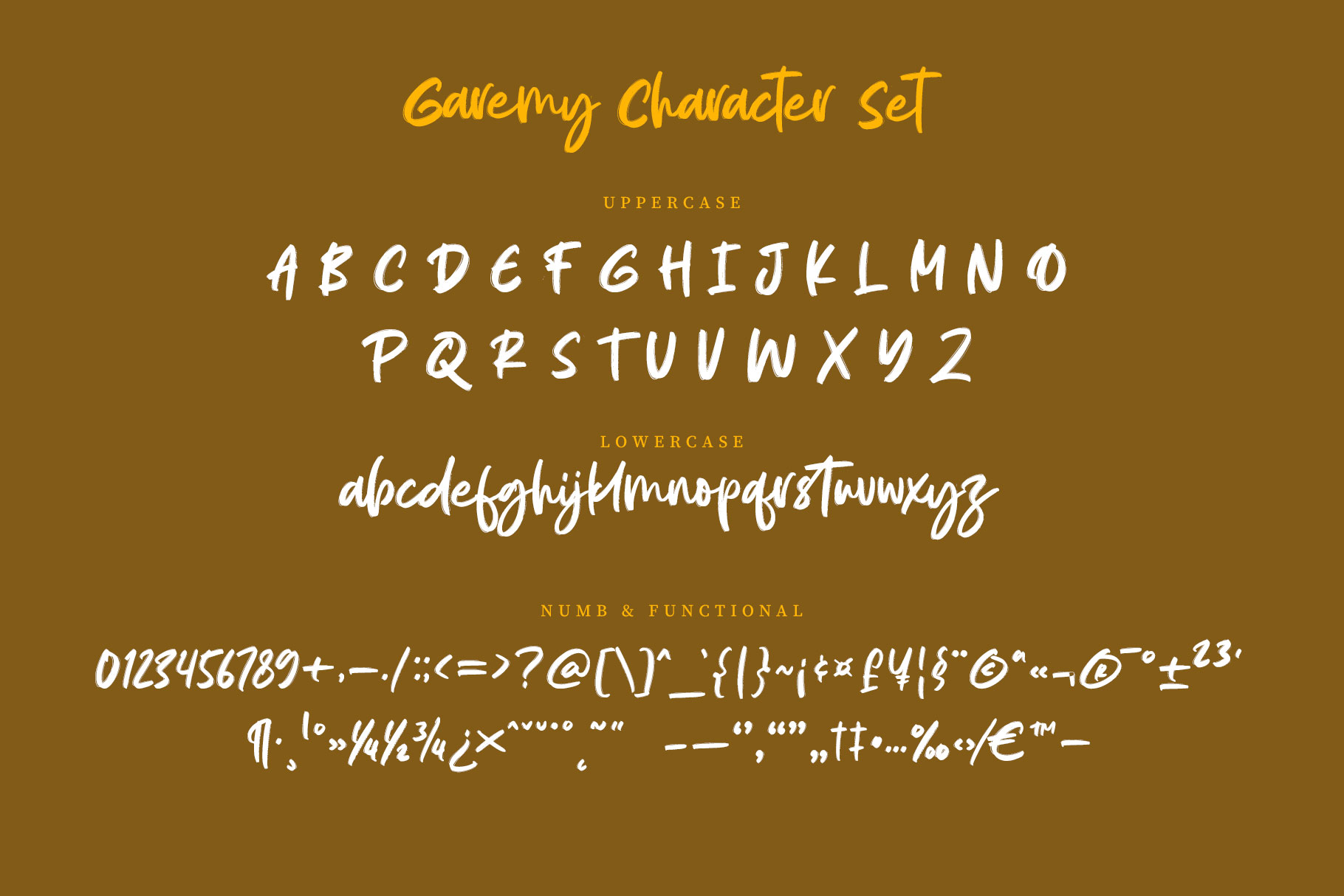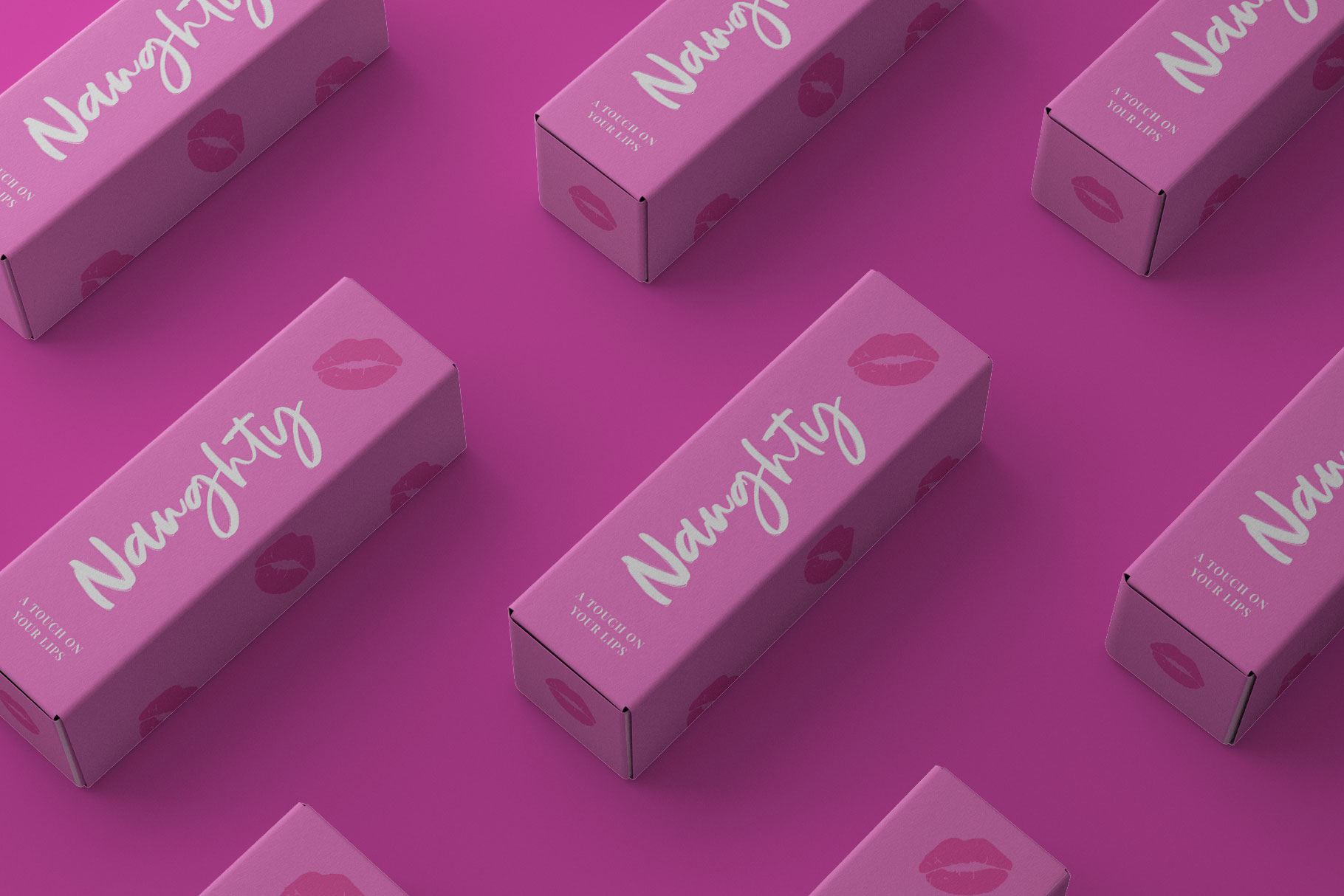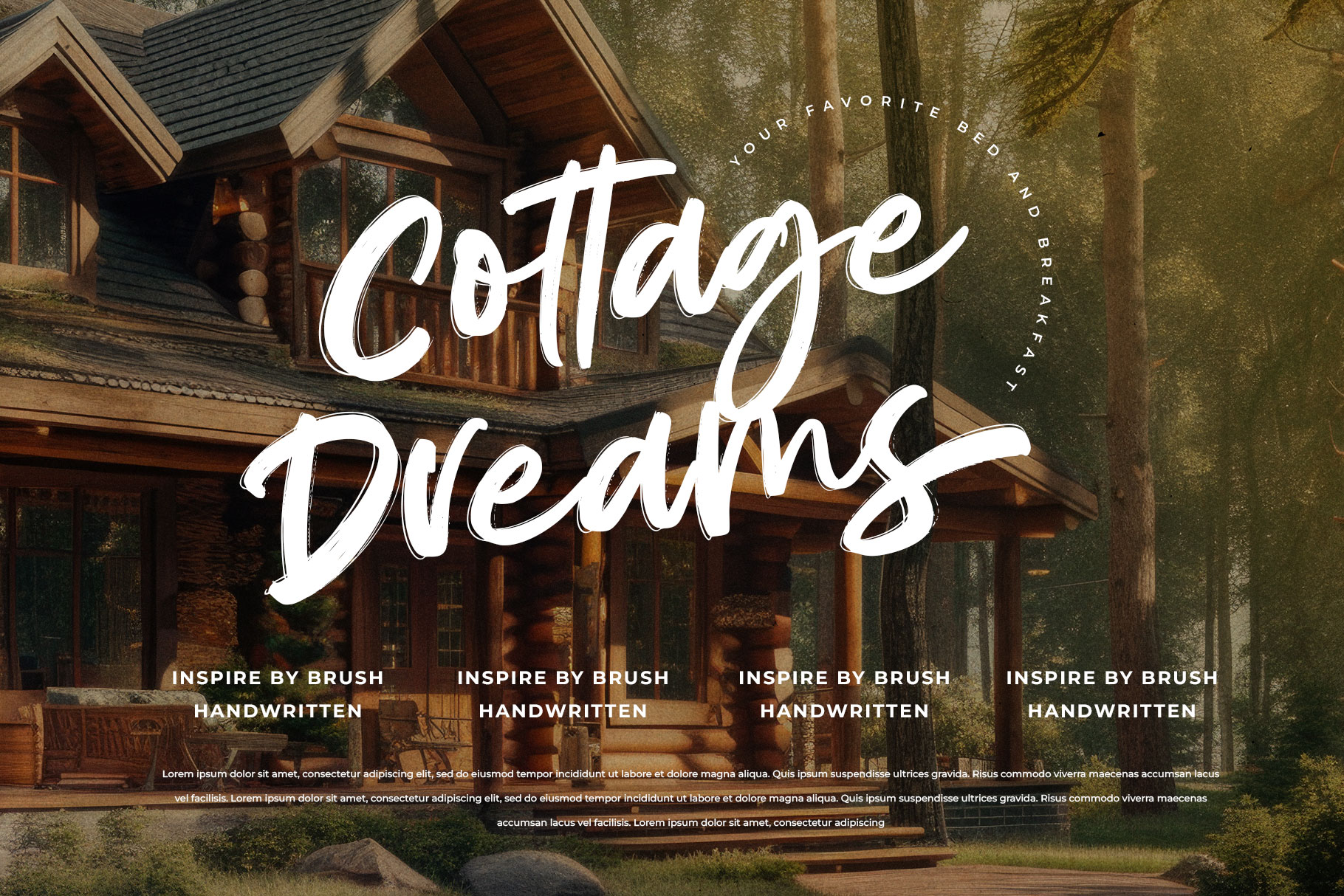
Garemy Handwritten Brush Font
Garemy is handwritten brush font with modern look. Garemy bring aesthetic of scratches brush, it can bring you desing project attractive and sophisticated. Garemy come with alternate, ligature and support multilingual character.
Garemy is a perfectly choice for any creative endeavor, chic, lifestyle design such as logos, advertisements, watermark on photography, stationery, branding project, display and magazine, invitation, corporate brand, product design, label, business project and other project with handwritten taste.